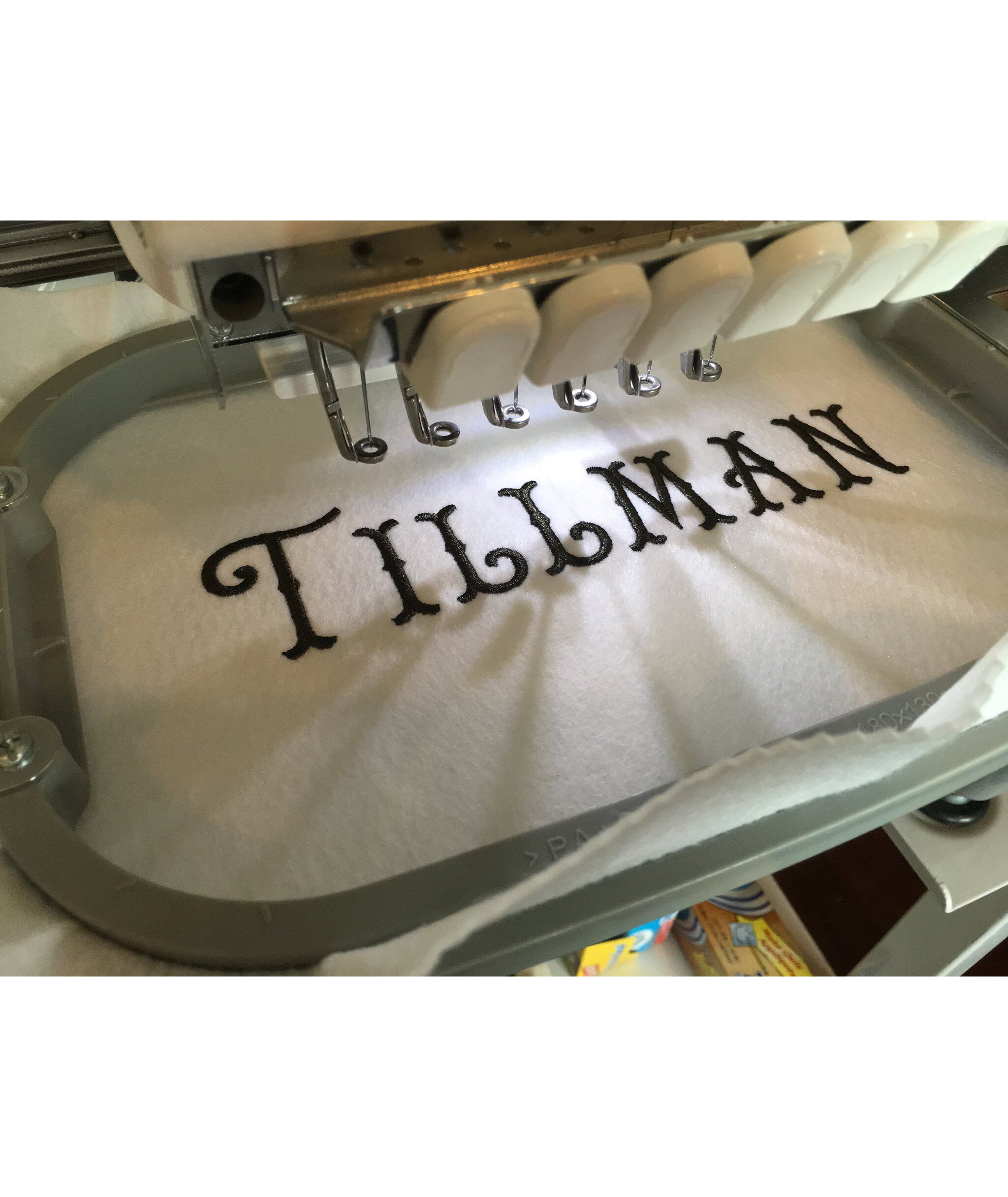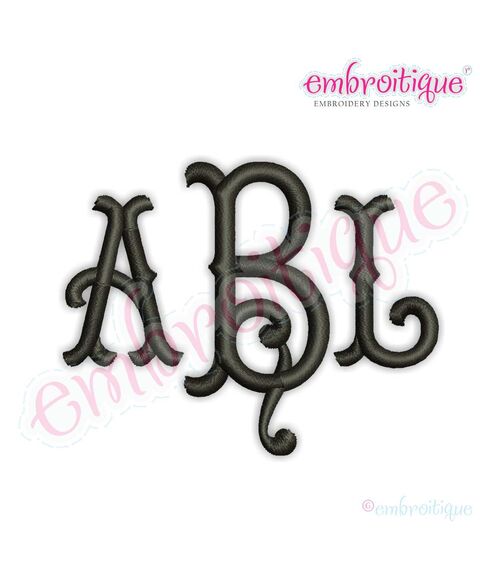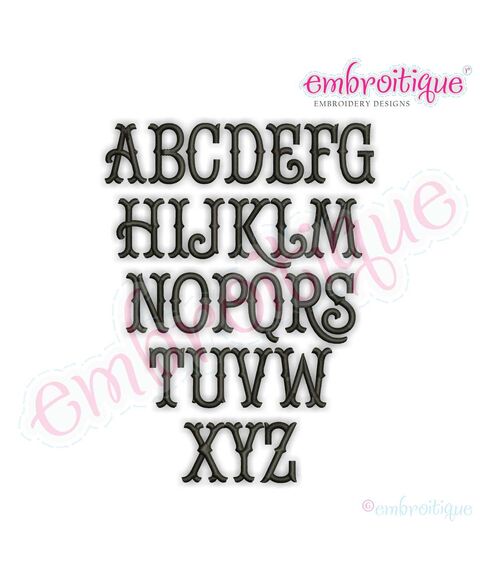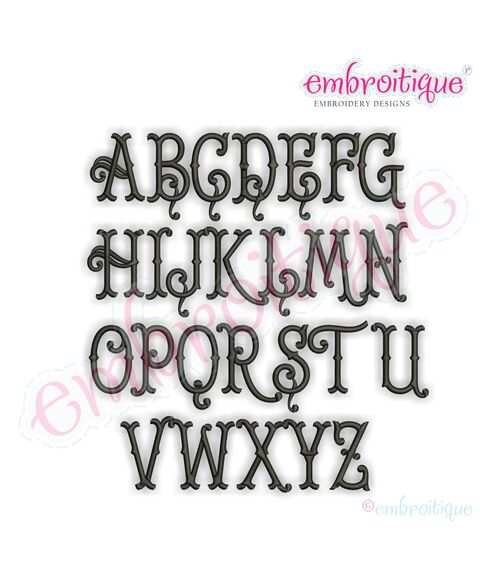
Tillman Classic Tuscan 3 Letter Monogram Machine Embroidery Alphabet
This is such a beautiful, elegant font! Build your own monograms, names, and sayings with these beautiful letters. Each letter is an individual file.
The monogram pictured is an example of what you can do with this set!